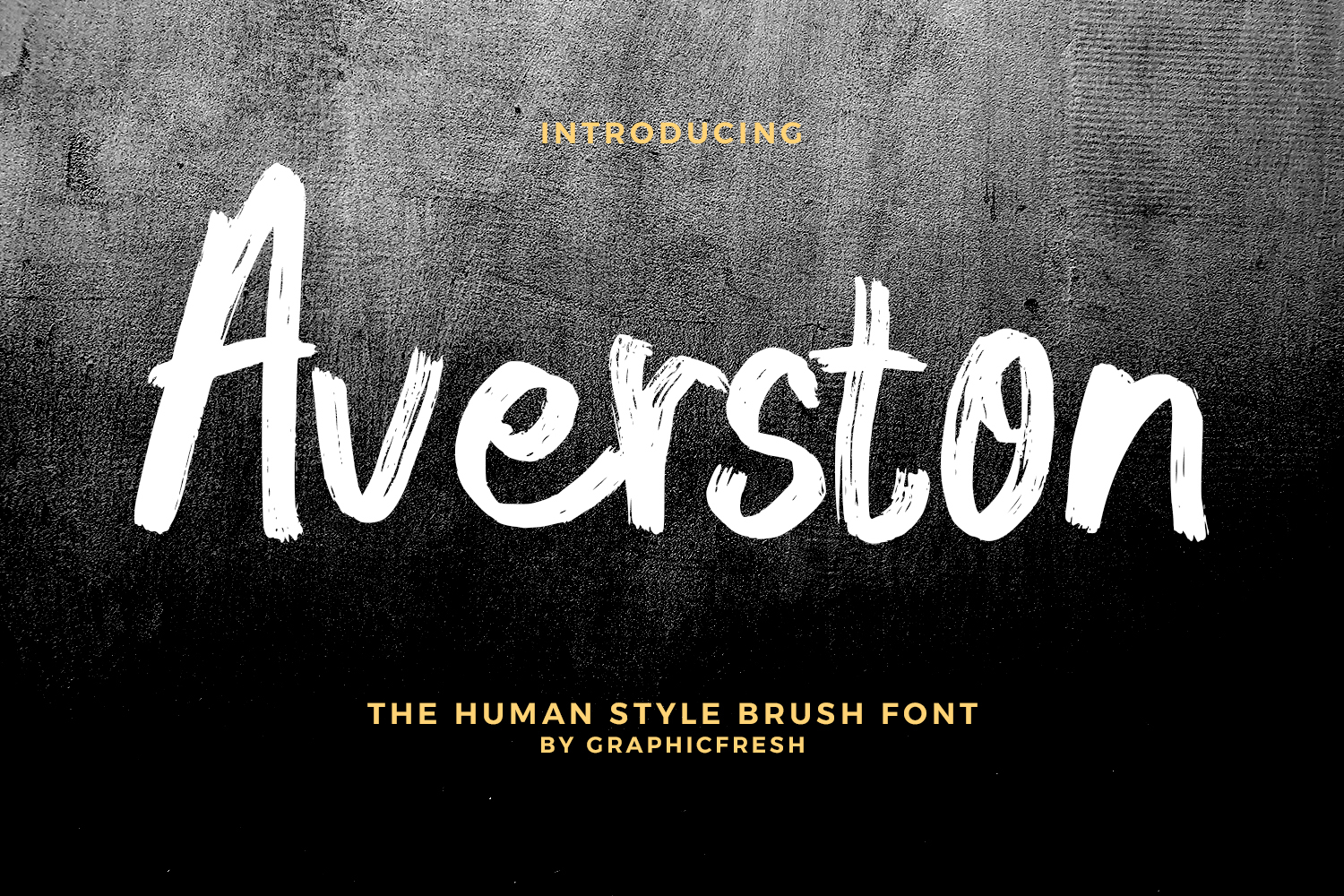
Averston - The Human Style Brush Font
Averston is a human style brush font inspired by the natural movement of real handwriting. Crafted with organic brush strokes and authentic imperfections, this font captures the warmth and personality of human-made lettering. Its expressive flow and balanced structure create a friendly yet confident visual tone while maintaining clear readability.